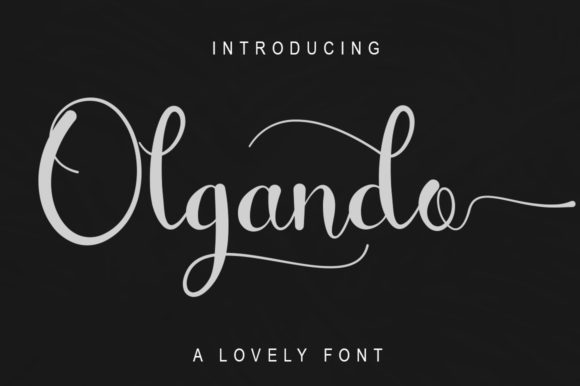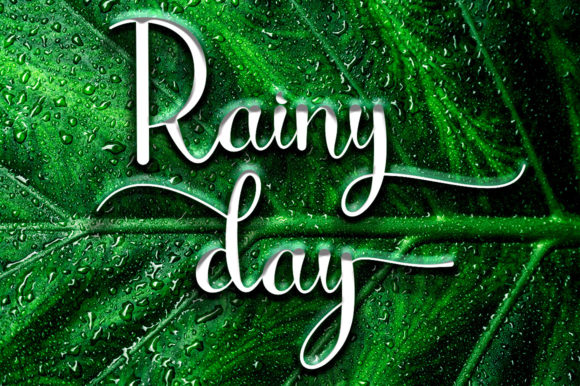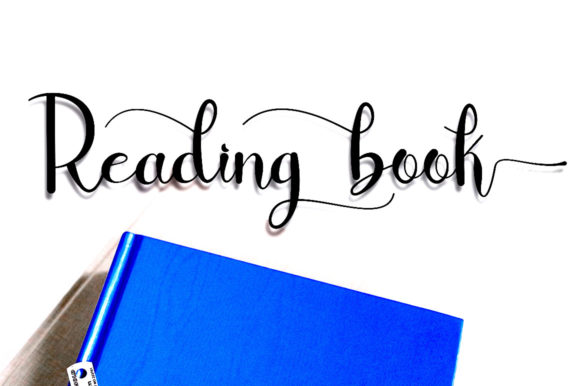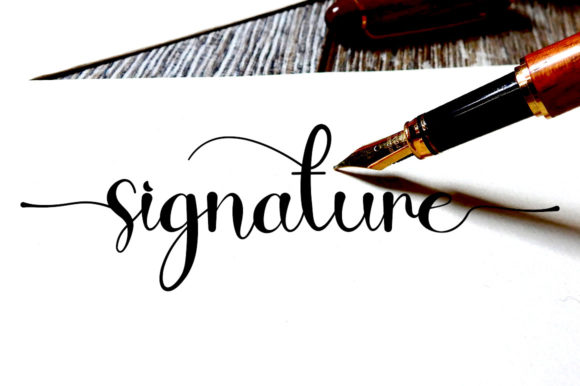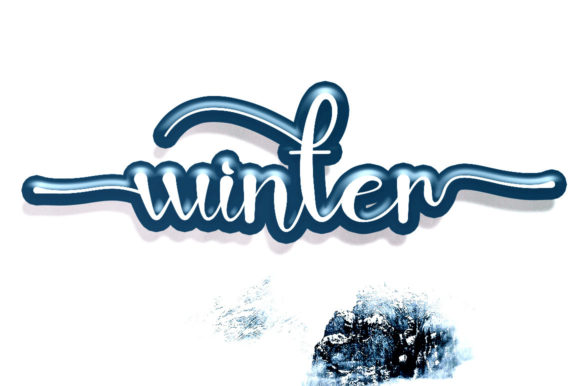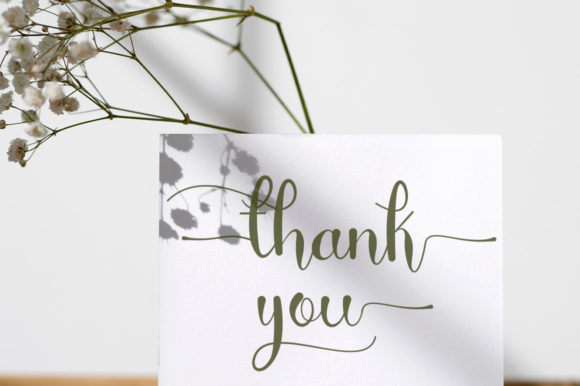
Olgando Font
About Olgando Font
Olgando is a well-adjusted script font featuring charming, playful characters that seem to dance along the baseline. This font is PUA encoded which means you can access all glyphs and swashes with ease!